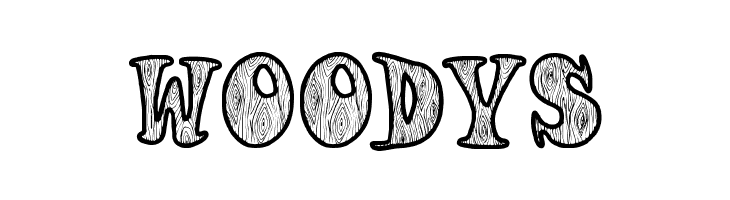
• Woodys 字体
( Fonts by EvasUniqueFonts )
A playful, wood-textured decorative font with a handcrafted feel.
• Woodys 字体
A bold, decorative font with a wood grain texture and hand-drawn style.
• WOODYSSEY 字体
( Fonts by Ahmad Zulfikar Ali )
A textured, wood-grain inspired font with a bold, decorative style.
• WoodyWood 字体
( Fonts by Tokokoo Studio )
A playful, hand-drawn font resembling wooden planks with a rustic, organic feel.
• Woof Squared 字体
• Woolacombe 字体
A modern serif font with geometric shapes and a vintage touch.
• Woolacombe Outline 字体
A modern outline font with geometric and clean letterforms.
• Woolbats 字体
• Woolkarth-Bold Bold 字体
( Hank Gillette )
A playful, handwritten-style font with rounded edges and a friendly vibe.
• Woolymood Demo 字体
An elegant, flowing cursive font with intricate loops and decorative swirls.